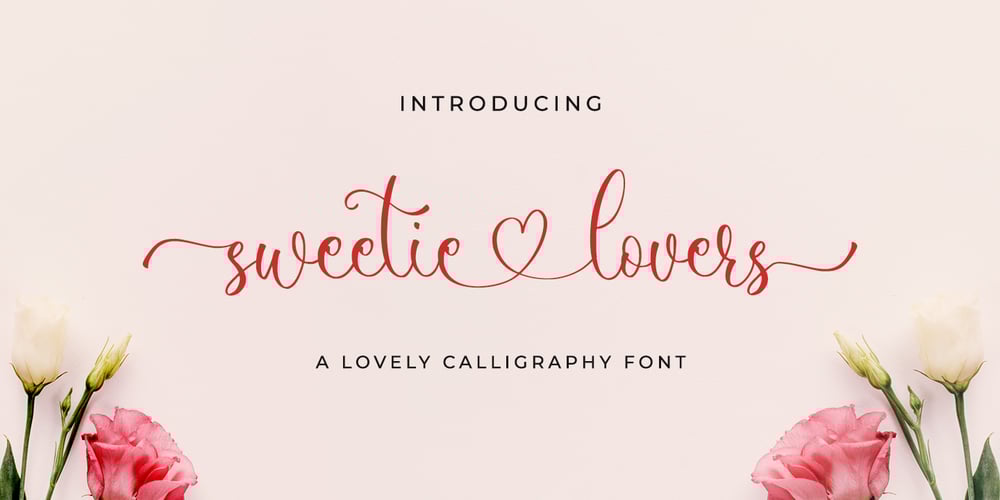
Sweetie Lovers Font Family was designed by Novia Himatunnisa and published by Nissa Nana. Sweetie Lovers contains 1 styles and family package options. Sweetie Lovers is a lovely and delicate script font that exudes elegance and class. This font was particularly crafted for those who need a beautiful and refreshing look to their designs.